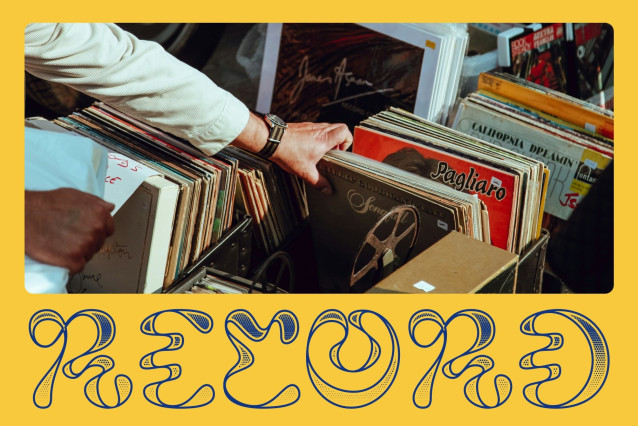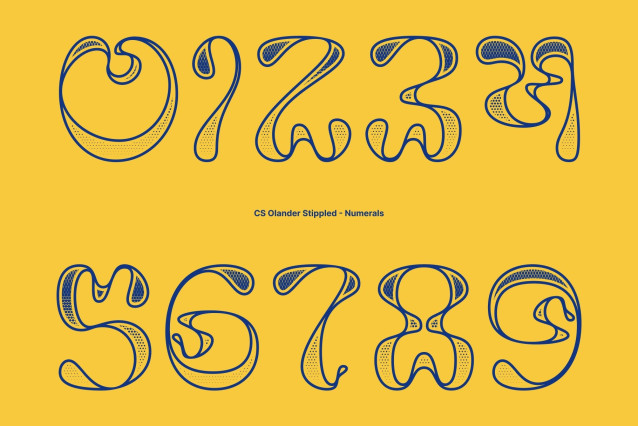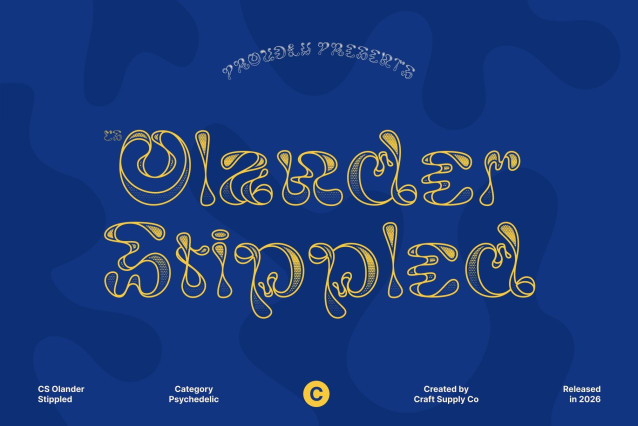
CS Olander Stippled Font
CS Olander Stippled – Trippy Font: A Psychedelic Wave of Creativity
Trippy Liquid Display Font
This is a bold liquid display font defined by fluid, irregular letterforms that mimic the natural movement of liquid. Enhanced with a stippled texture, its organic flow and surreal distortions create a hallucinogenic, mind-bending visual experience that instantly captures attention.
Dynamic and Psychedelic Aesthetic
This font radiates motion, rhythm, and artistic energy. Its wavy shapes and shifting stroke thickness generate depth and dimension, producing a hypnotic effect that feels both retro and futuristic. Perfect for designs inspired by psychedelic art, experimental visuals, and dreamlike aesthetics.
Perfect for Music and Festival Designs
This font shines in music posters, festival branding, album covers, and event promotions. Its funky and expressive character captures the electrifying spirit of live music, rave culture, and creative expression, making every headline feel vibrant and energetic.